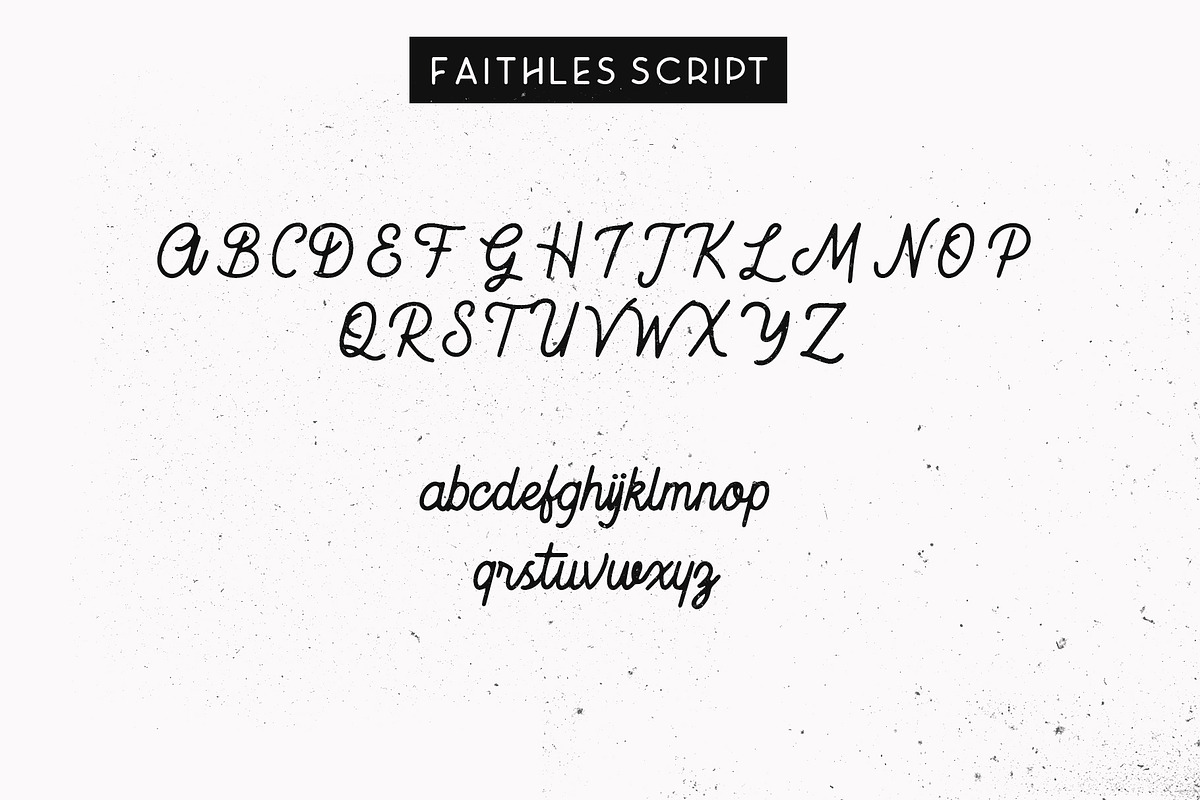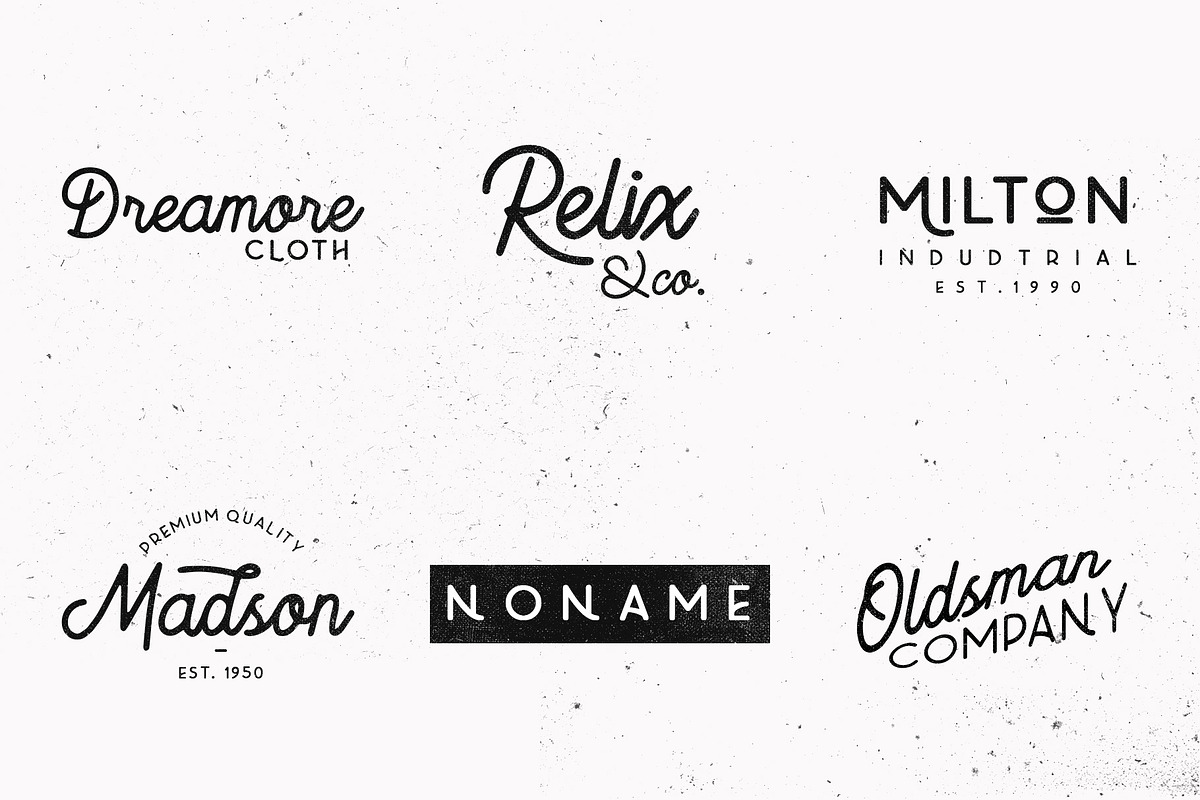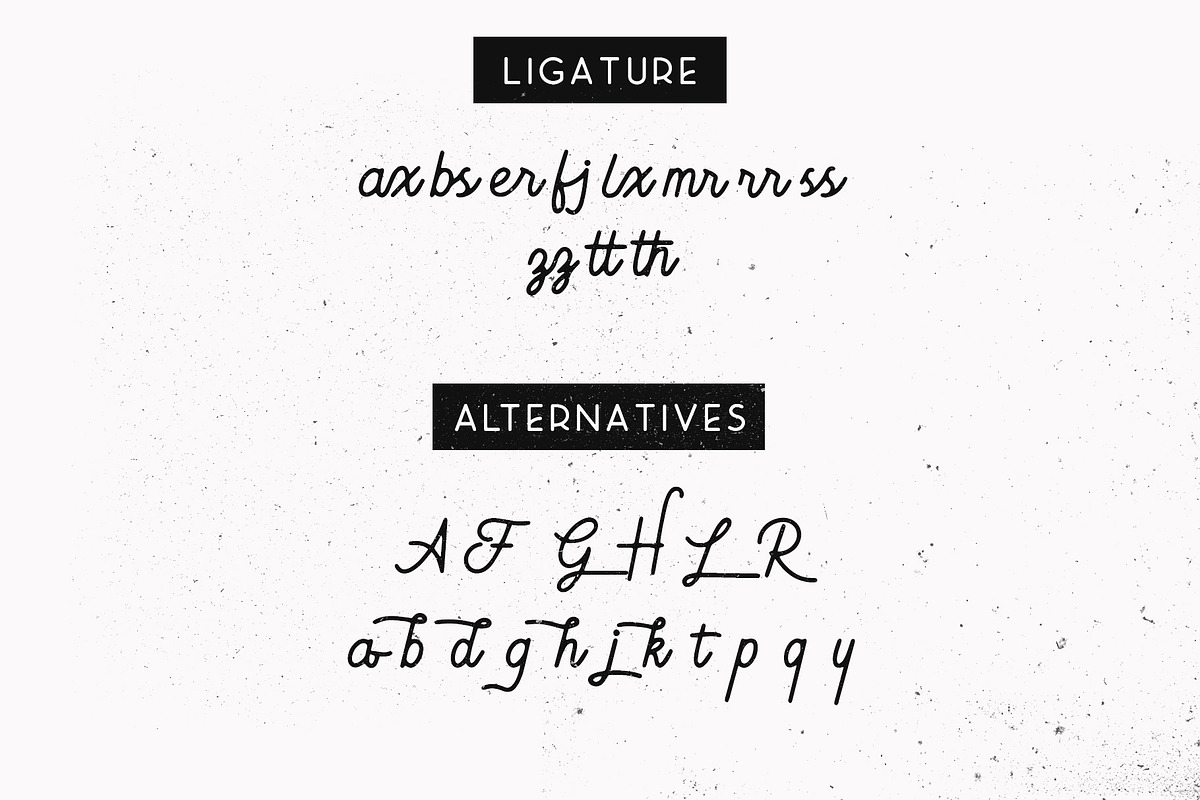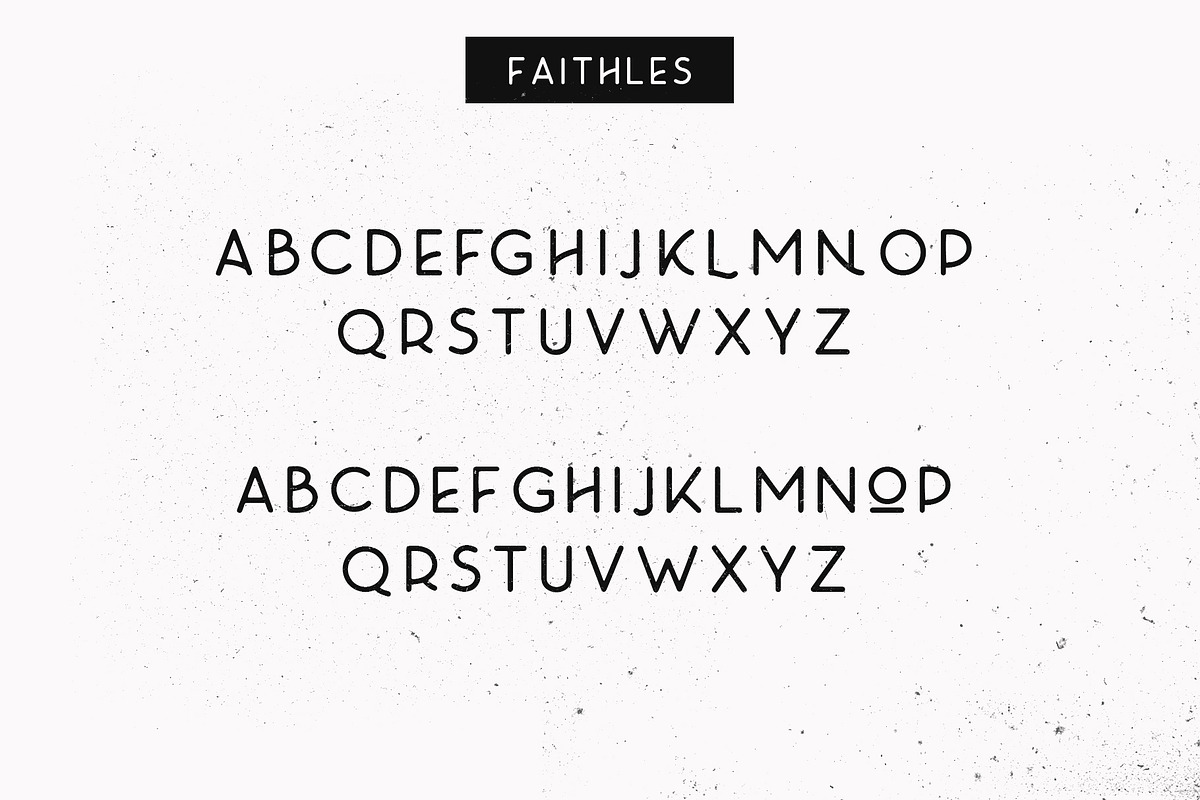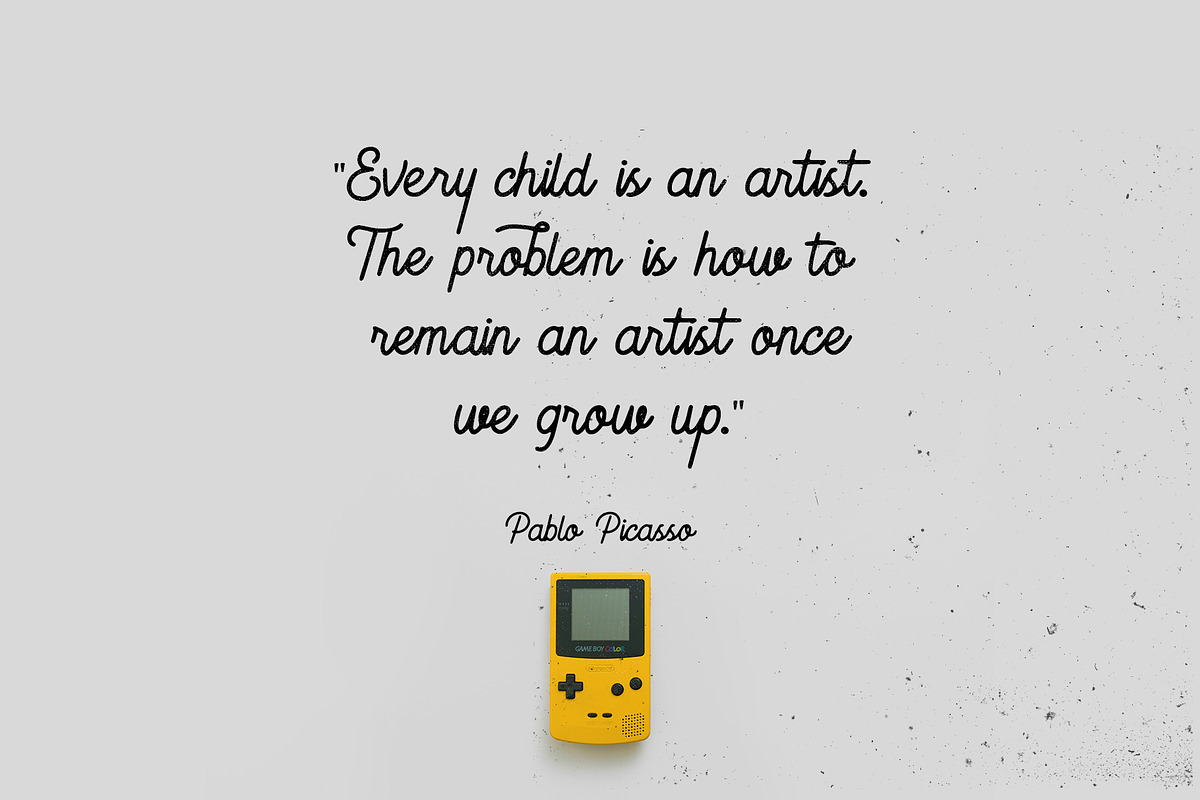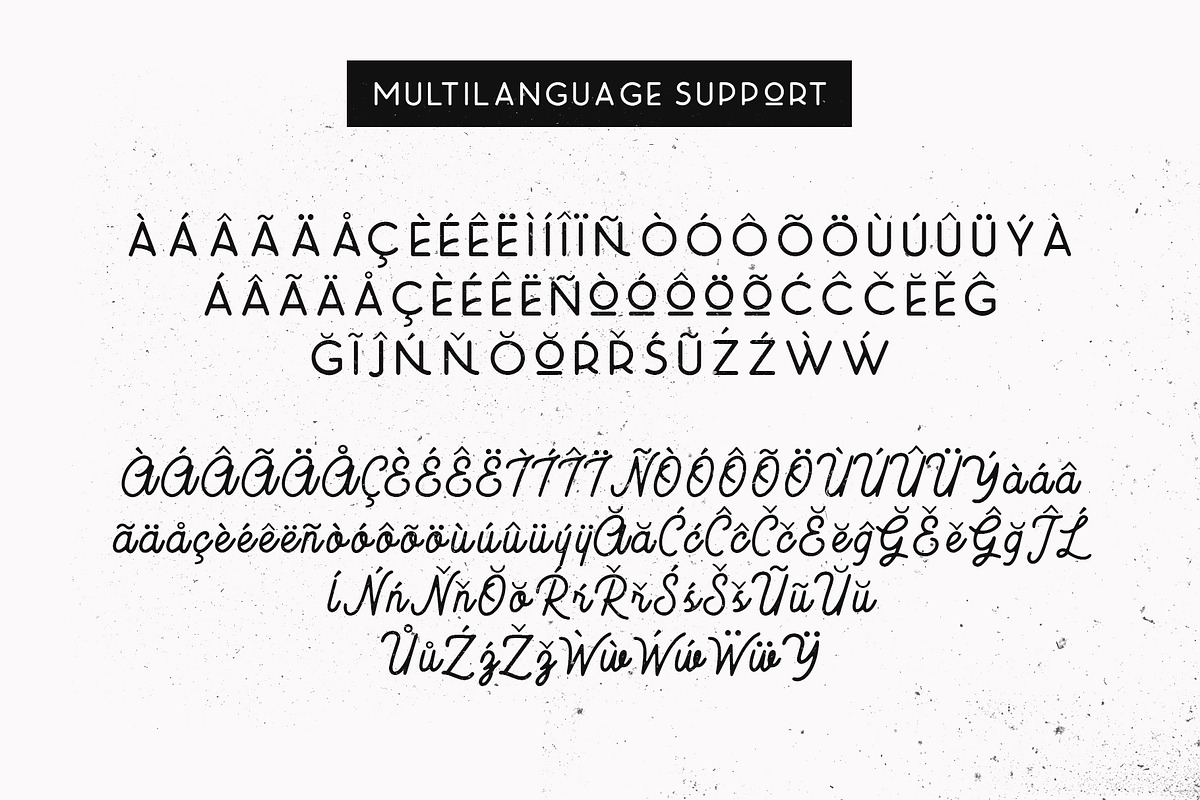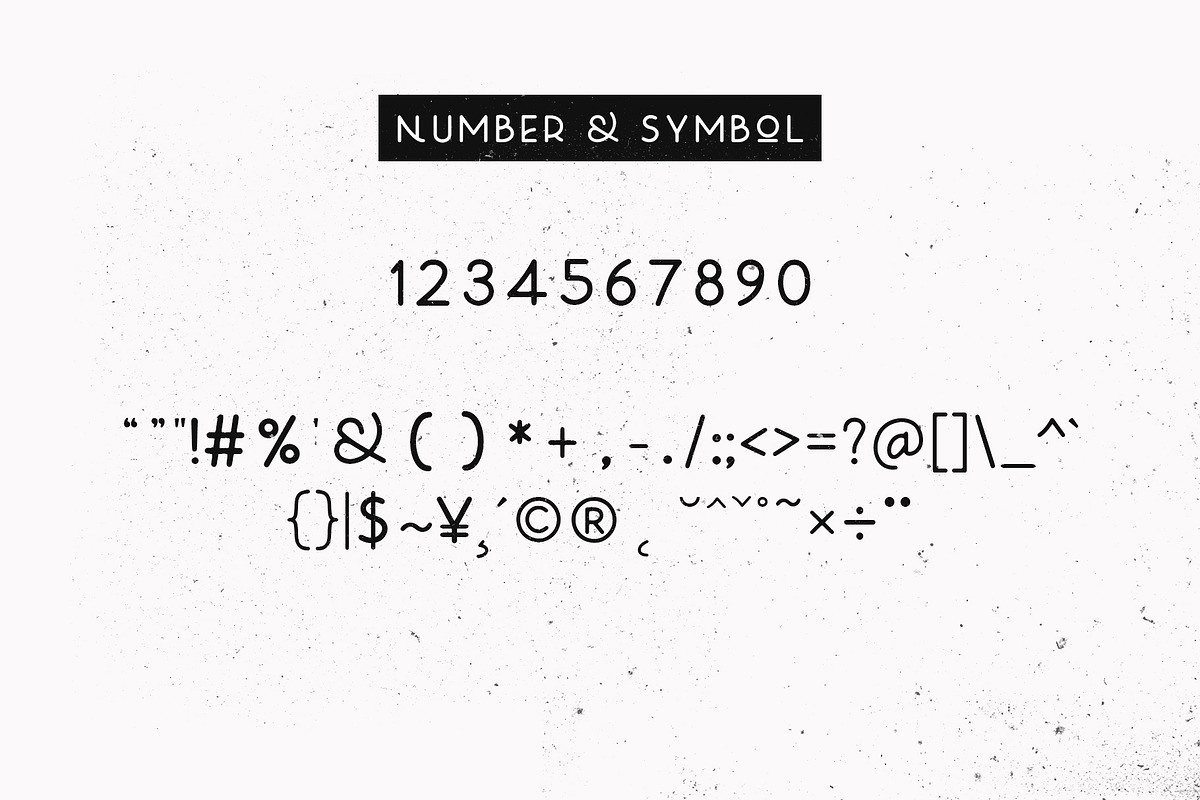
Faithless font duo
Faithless font is a modern vintage display font with 2 font styles inside, a classy combination makes this font suitable for logo design, flyers, posters, etc.
Why Faithless font duo is worth a look
Faithless font duo by Emyself Design fits naturally into Branding, posters, packaging, typography.